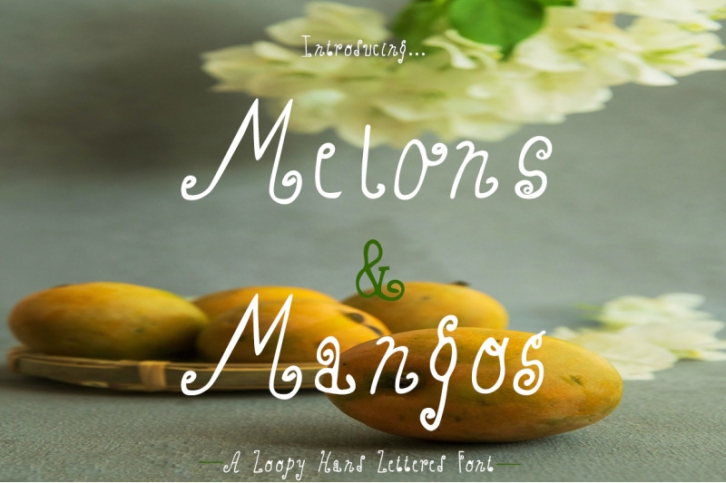
Melons & Mangos - Hand Lettered Font Download
Introducing Melons & Mangos, a hand lettered font with a loopy/whirly look with curly ends.
Melons & Mangos is best for:
- logos + branding that need a loopy style
- wedding invitation design for the bubbly bride
- Swirly print design, like magazines + flyers
- header elements that need a curly touch
- crafting projects on your Cricut, Silhouette, or other vinyl cutting machine (Melons & Mangos features a super clean, smooth feel with a burst of character)
- quote graphics for social media
- Melons & Mangos includes:
- full upper + lowercase characters
- numbers + punctuation
- Western European Language Support
- 7 alternate characters (b, h, 2 letter o's, and 2 letter z's)
- 15 super creative and unique symbols to add flavor to the font